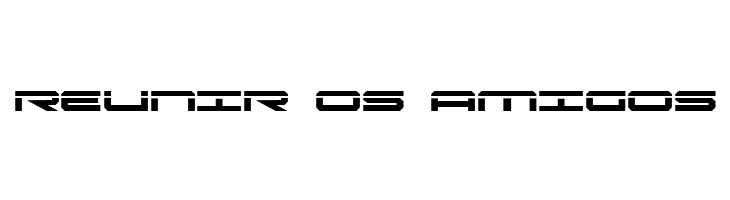
Pilot Command Laser Font
- Font: Pilot Command Laser
( Fonts by Press Gang Studios - Andeh Pinkard - www.pressgang-studios.com )
A bold, geometric font with a futuristic and assertive style.